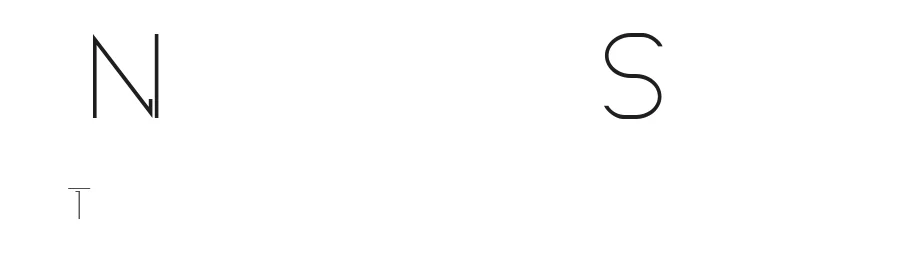
About Larimar Font
A geometrical, caps and figures only, sans serif design.
Kerning pairs. For use for text and display typography.
Larimar Font
by Alex Sven